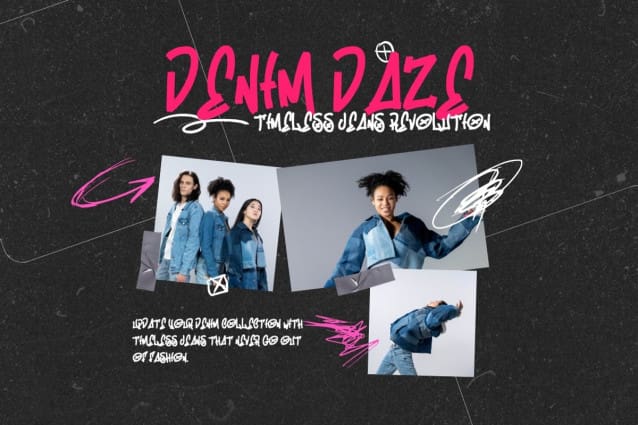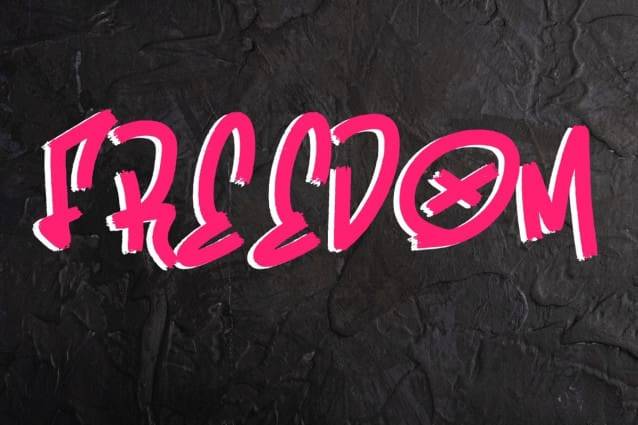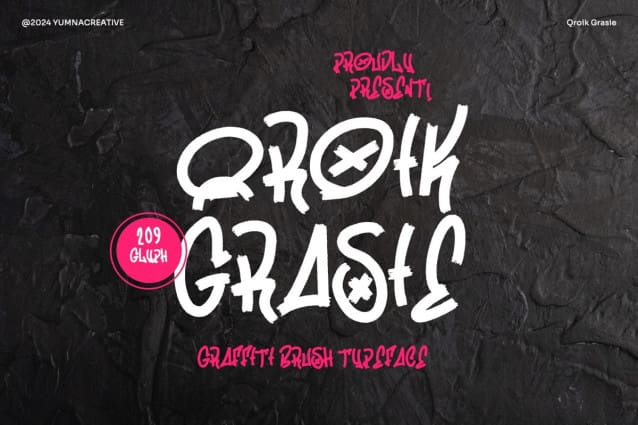
Qroik Grasie Font
Qroik Grasie Font – Graffiti Brush is a digital tool designed for creating graffiti-style artwork. It mimics the look of spray paint and brush strokes, allowing users to create bold, colorful designs with ease. Perfect for artists who want to add a street art vibe to their digital creations.